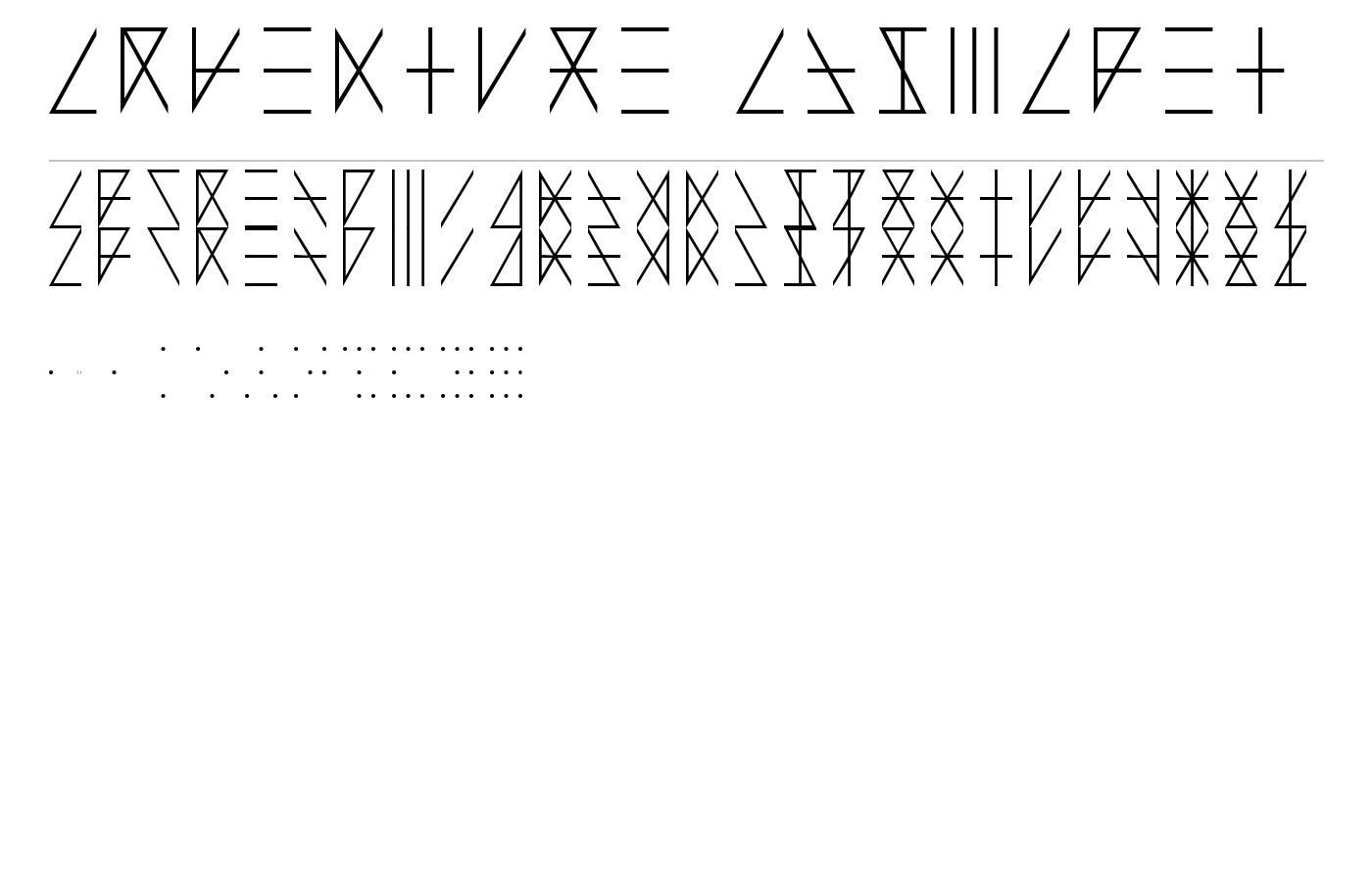
Adventure Alphabet Font is a highly stylized, geometric display typeface with sharp, angular lines that evoke a futuristic or ancient symbolic feel. Its very narrow and elongated letterforms, combined with consistent thin strokes, give it a mysterious, adventurous personality perfect for creative branding, logos, or designs that seek an enigmatic, tech-inspired atmosphere. This font works best in large sizes where its intricate shapes can be fully appreciated, making it ideal for posters, titles, or unique visual statements rather than body text.
Adventure Alphabet Font